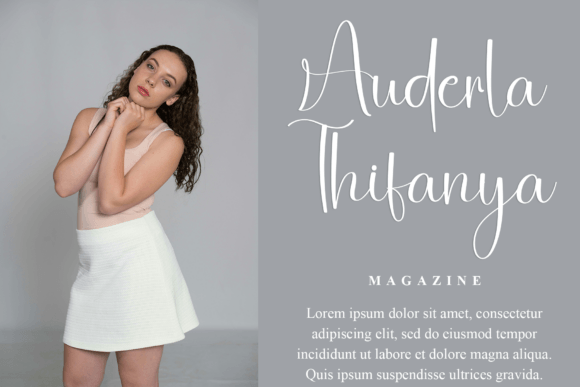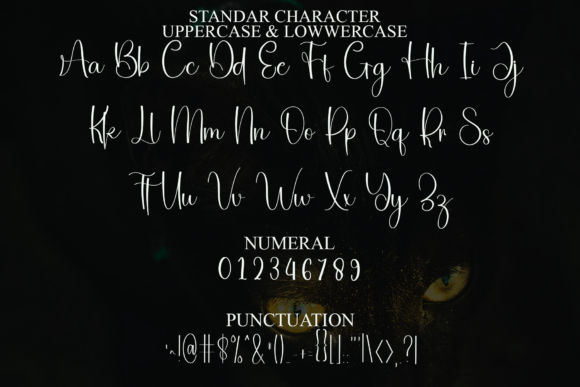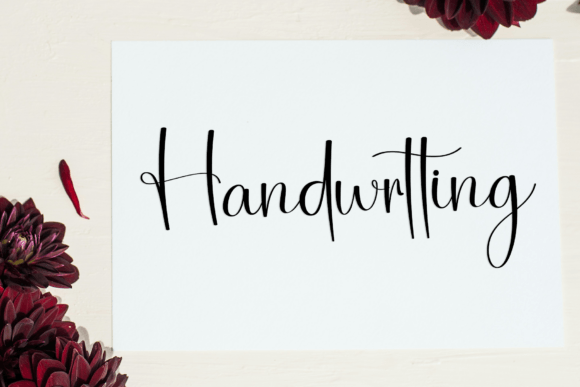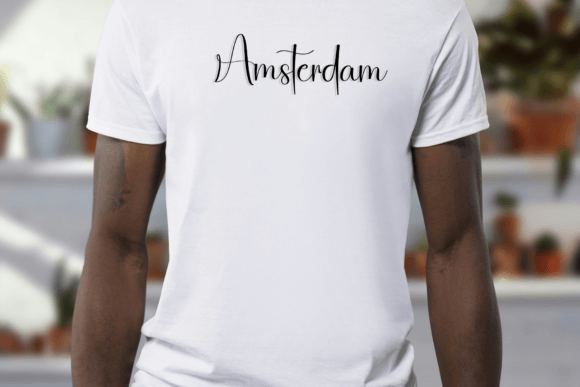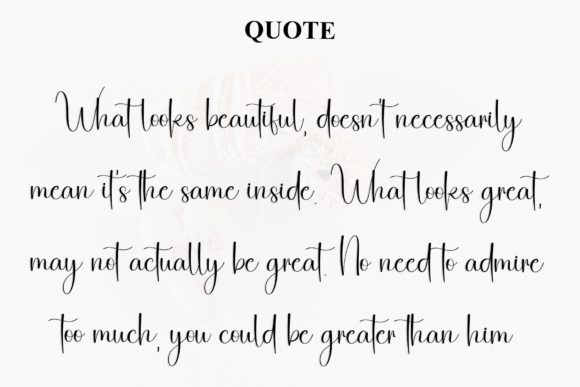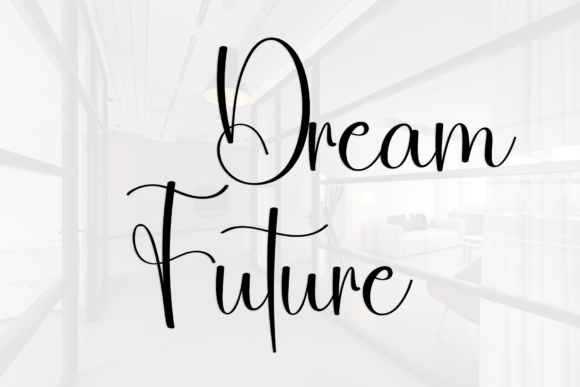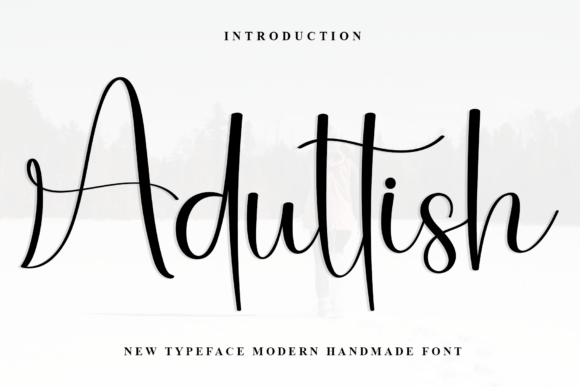
Introducing Adultish Font: Elevate Your Designs with a Touch of Modern Elegance
In the world of typography, fonts play a crucial role in conveying the tone and personality of a design. For designers and crafters looking to add a personal touch to their projects, Adultish Font is an excellent choice. This stylish, handwritten script font boasts a modern feel that is both sophisticated and playful, making it perfect for a wide range of applications.
What is Adultish Font?
Adultish Font is a beautifully crafted, handwritten script font that exudes a sense of modern elegance. Its smooth, flowing curves give it a natural and effortless look, making it ideal for designs that require a touch of personality. Whether you’re working on invitations, logos, quotes, or any other project, Adultish Font is sure to bring a fun and creative vibe to your work.
Key Features of Adultish Font
• Modern Feel: Adultish Font has a distinctly modern aesthetic that sets it apart from more traditional fonts. Its sleek lines and smooth curves give it a fresh and contemporary look.
• Handwritten Script: The font’s handwritten script style adds a personal touch to any design. It’s perfect for creating unique and eye-catching text that stands out.
• Playful yet Elegant: Adultish Font strikes the perfect balance between playfulness and elegance. It’s sophisticated enough for formal designs but also fun and creative enough for more casual projects.
• Versatile: This font is incredibly versatile and can be used for a wide range of applications, including invitations, logos, quotes, and more.
Uses of Adultish Font
Adultish Font is suitable for various design projects, including:
• Invitations: Add a touch of elegance and sophistication to your invitations with Adultish Font. It’s perfect for weddings, birthday parties, and other special occasions.
• Logos: Create a unique and memorable logo for your business or brand with Adultish Font. Its modern feel and handwritten script style make it an excellent choice for companies looking to stand out.
• Quotes: Add a personal touch to your quotes and sayings with Adultish Font. Its playful yet elegant style makes it perfect for social media posts, blogs, and other online content.
• Branding: Use Adultish Font to create a consistent brand identity across all your marketing materials. Its versatility and modern feel make it an excellent choice for businesses looking to establish a strong brand presence.
Why Choose Adultish Font?
With so many fonts available, why choose Adultish Font? Here are a few reasons:
• Unique Style: Adultish Font has a unique style that sets it apart from other fonts. Its modern feel and handwritten script style make it an excellent choice for designers looking to create something distinctive.
• Easy to Read: Despite its elegant and cursive style, Adultish Font is easy to read, making it perfect for body text and other applications where readability is crucial.
• Customizable: Adultish Font is highly customizable, allowing you to adjust its size, color, and style to fit your design needs.
Tips for Using Adultish Font
Here are a few tips for using Adultish Font in your designs:
• Pair it with Other Fonts: Adultish Font pairs well with other fonts, especially sans-serif fonts. Experiment with different combinations to find the perfect look for your design.
• Use it for Headings: Adultish Font is perfect for headings and titles. Use it to add a touch of elegance and sophistication to your designs.
• Experiment with Colors: Adultish Font looks great in a variety of colors. Experiment with different colors to find the perfect look for your design.
Adultish Font is a stylish, handwritten script font with a modern feel that’s perfect for designers and crafters looking to add a personal touch to their projects. Its smooth, flowing curves and playful yet elegant style make it suitable for a wide range of applications, from invitations and logos to quotes and branding. With its unique style, ease of readability, and customizability, Adultish Font is an excellent choice for anyone looking to elevate their designs.